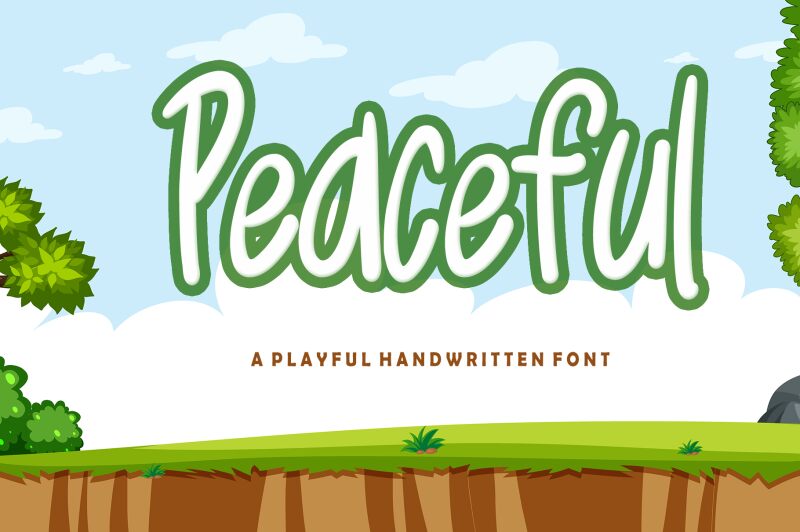
Peaceful font by Annisa Afni is a stunning free handwritten font condensed in its style and memorable in its presence. It offers elegant and flowing letters with modern script elements that will certainly catch the eye. Its expressive appearance features a unique combination of graceful curves and energetic movements.
Using Peaceful will allow you to create the perfect branding designs, labels, badges, and signage projects. Make it part of your next calligraphy-focused project such as posters, invitations, social media posts, apparel designs, or packaging. The delicate handwriting style is also ideal for writing product descriptions on product labels and tags.